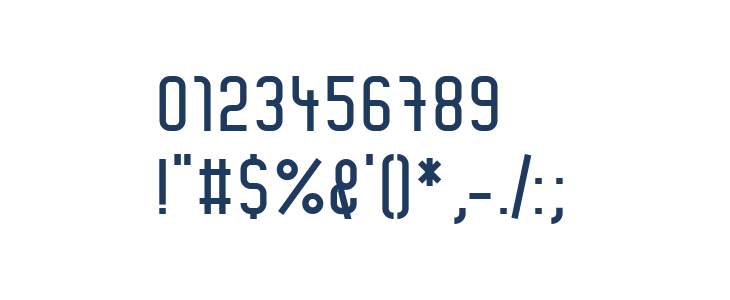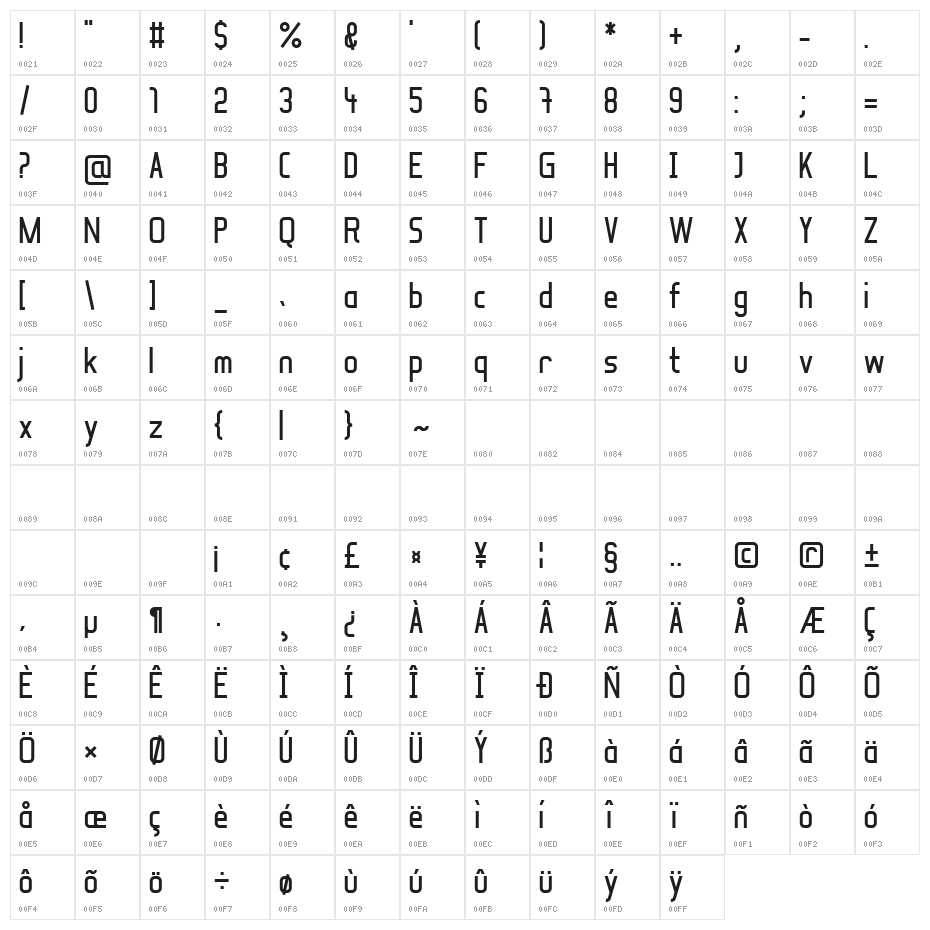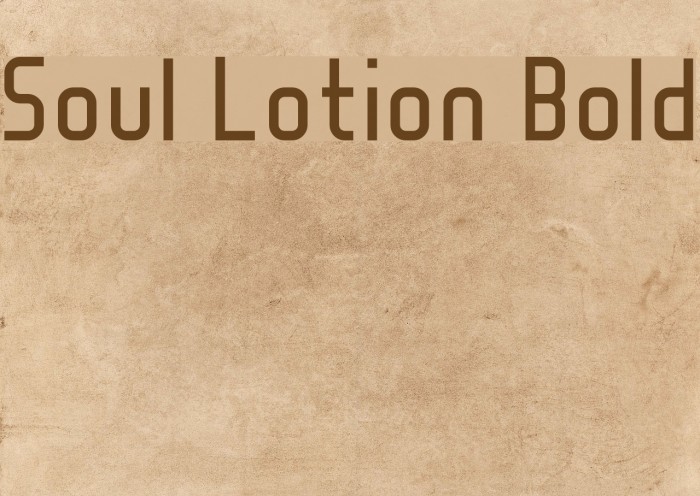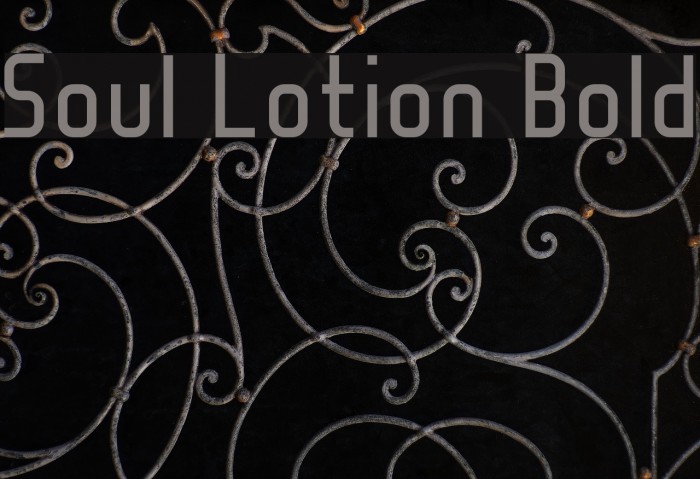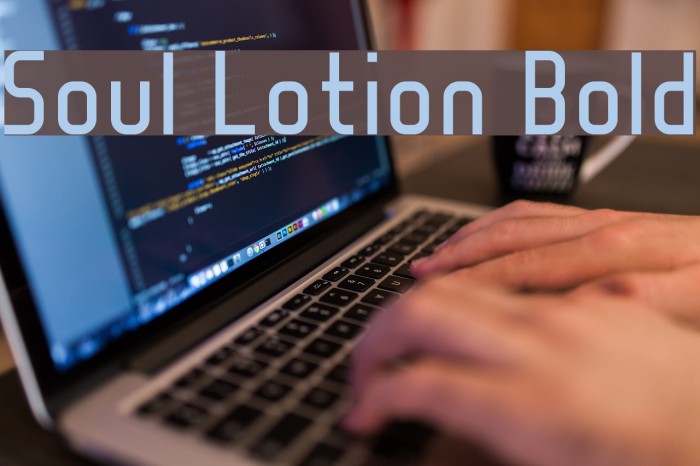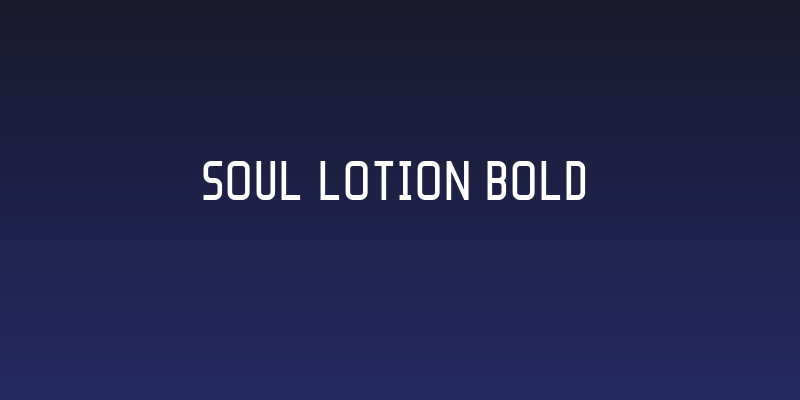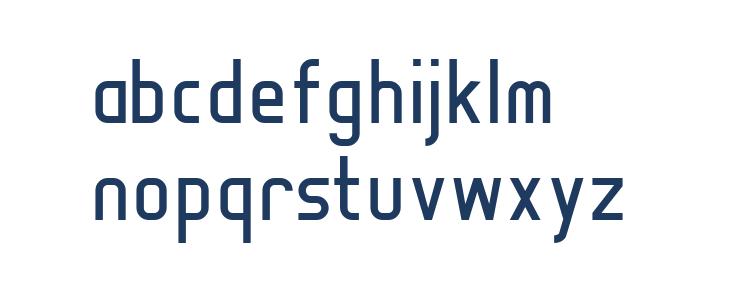
Soul Lotion Bold Font
Soul Lotion Bold Description
This font features a bold and modern design with clean, geometric lines. The uppercase letters are tall and slightly condensed, giving a strong and assertive appearance. The lowercase letters maintain a consistent height, contributing to a uniform and balanced look. The numerals are clear and legible, with a slightly rounded finish that adds a touch of softness to the overall design. Special characters are well-integrated, maintaining the font's cohesive style. The font's structure is straightforward, making it versatile for various applications.
| Proposed Projects | Ideal for branding, headlines, posters, and digital media where a strong, modern presence is desired. |